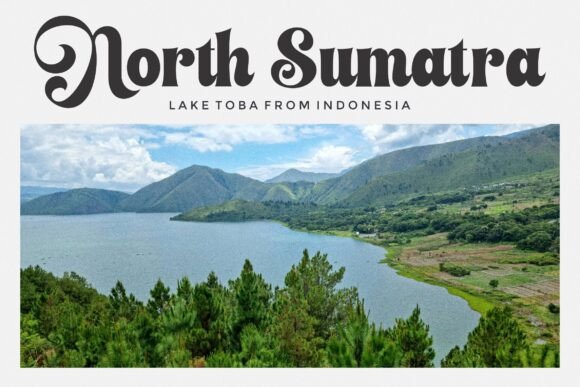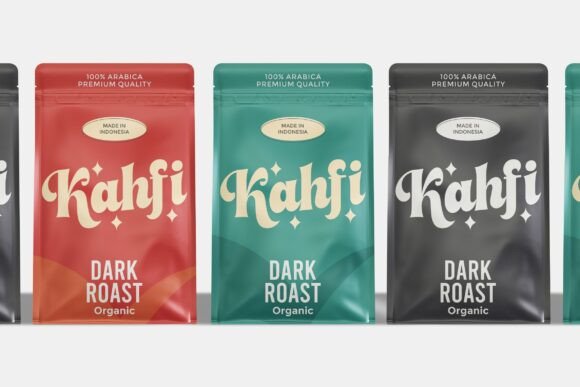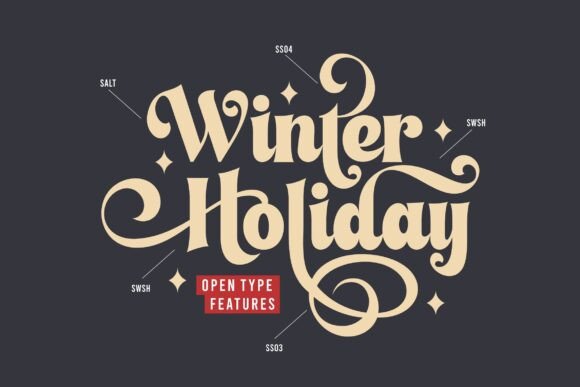
Introduction to Smile Delight Font
Smile Deligth is a bold font that radiates confidence, joy, and creativity.
With its thick strokes and playful curves, this typeface is designed to make a statement Perfect for headlines, posters, branding, and packaging, Smile Deligth brings a cheerful energy to every design it touches.
Key Features of Smile Delight Font
Why Choose Smile Delight Font?